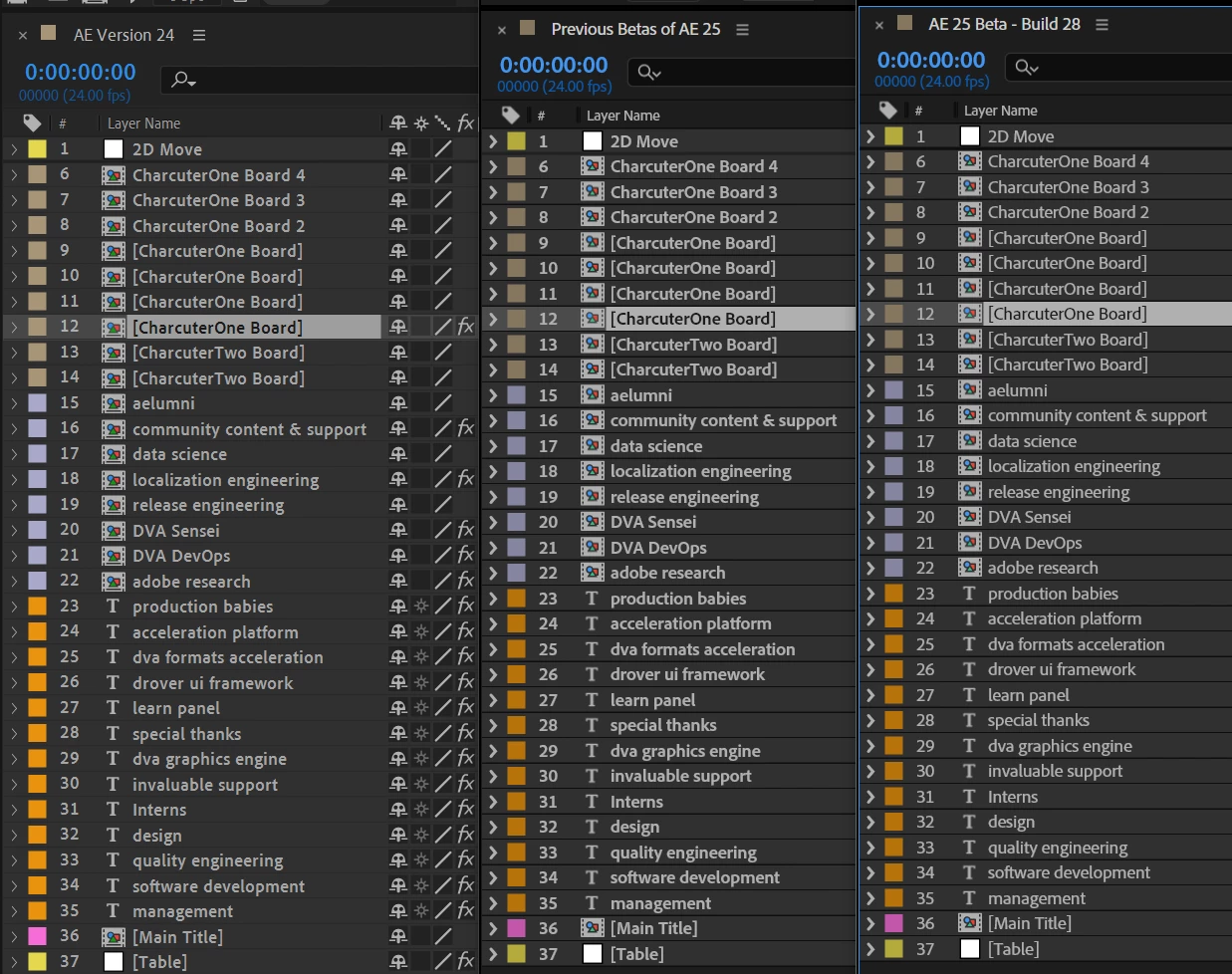
After Effects Beta - Text Font Weight Change
Today we’re announcing a small but perhaps impactful change in AE Beta x28 and we’d really like your feedback on it.
We are changing the font weight for many of the After Effects UI elements from bold to normal weight. This will make the text in After Effects betas moving forward more closely match the look of the text in previous stable releases of After Effects.
We’ve done internal testing and found this increases both legibility and readability when compared to the bolder font weight; particularly when using higher display resolutions or lower display scaling.
We expect you’ll notice this change most in the Timeline panel, but it’s also changing the Project, Effect Controls Panel, and some others.